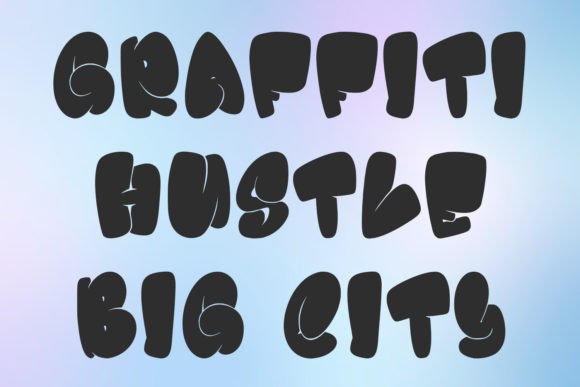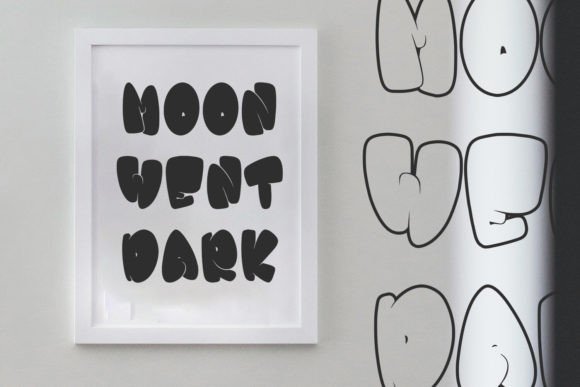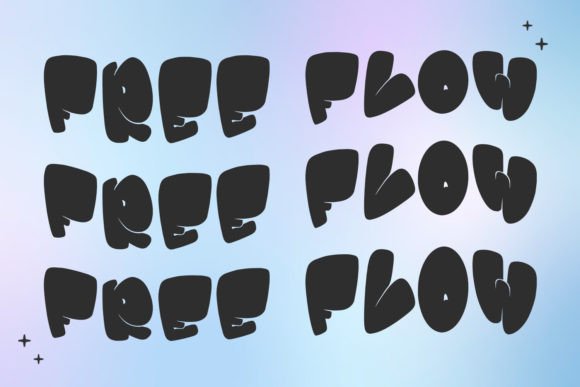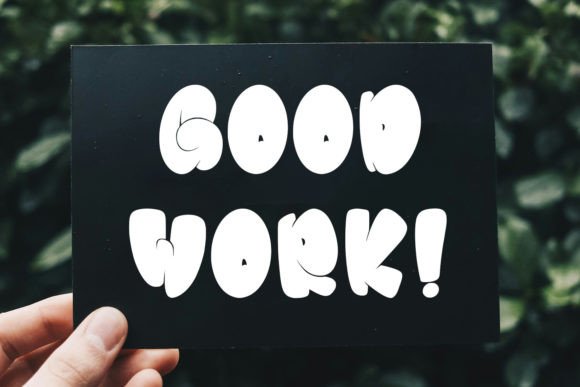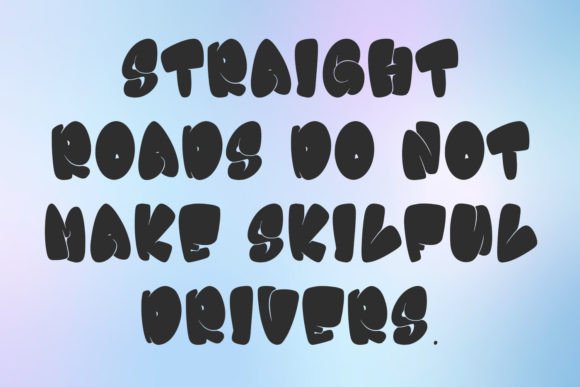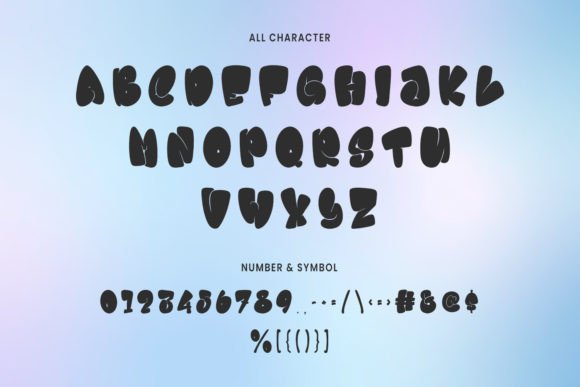
Introducing Boizz Font: The Fun and Playful Bubble Graffiti Font
Are you looking for a font that adds a cool, urban vibe to your creative projects? Look no further than Boizz Font! This fun and playful bubble graffiti font is perfect for designers, crafters, and anyone looking to add a touch of personality to their work. In this article, we’ll dive into the features and benefits of Boizz Font, and explore how you can use it to take your designs to the next level.
What is Boizz Font?
Boizz Font is a bold, rounded font that looks like it was drawn with a marker. Its playful, bubbly letters are reminiscent of graffiti art, but with a clean and modern twist. The font is perfect for creating eye-catching posters, flyers, and social media graphics that need to stand out from the crowd.
Key Features of Boizz Font
- Bold and rounded letters: Boizz Font features bold, rounded letters that are perfect for creating a fun and playful look.
- Marker-like texture: The font has a textured, marker-like quality that gives it a unique and authentic feel.
- Urban vibe: Boizz Font is perfect for designs that need a cool, urban vibe, such as posters, flyers, and social media graphics.
- Easy to read: Despite its bold and playful design, Boizz Font is easy to read, making it perfect for headlines, titles, and short paragraphs of text.
Benefits of Using Boizz Font
So why should you use Boizz Font in your designs? Here are just a few benefits:
- Adds personality to your designs: Boizz Font is a unique and eye-catching font that can add personality and style to your designs.
- Perfect for creative projects: Boizz Font is perfect for creative projects, such as posters, flyers, and social media graphics.
- Versatile: Boizz Font can be used for a wide range of designs, from bold and colorful posters to more subtle and sophisticated branding materials.
How to Use Boizz Font in Your Designs
Using Boizz Font in your designs is easy! Here are a few tips to get you started:
- Pair with a simple font: Boizz Font is bold and playful, so it’s best paired with a simpler font for body text.
- Use for headlines and titles: Boizz Font is perfect for headlines and titles, where its bold and playful design can really shine.
- Experiment with colors: Boizz Font looks great in bold and bright colors, but it can also be used in more subtle and muted tones.
- Have fun!: The most important thing is to have fun and be creative with Boizz Font! Experiment with different designs and styles to see what works best for you.
In conclusion, Boizz Font is a fun and playful bubble graffiti font that’s perfect for designers, crafters, and anyone looking to add a cool, urban vibe to their work. With its bold and rounded letters, marker-like texture, and easy-to-read design, Boizz Font is a versatile and eye-catching font that can add personality and style to any design. So why not give it a try and see what amazing designs you can create?
If you’re a designer or crafter looking to use Boizz Font in your work, here are a few tips to keep in mind:
- Use Boizz Font to add a pop of personality: Boizz Font is perfect for adding a pop of personality to your designs, whether it’s a bold headline or a playful illustration.
- Experiment with different colors and textures: Boizz Font looks great in a wide range of colors and textures, so don’t be afraid to experiment and see what works best for your design.
- Pair with other fonts: Boizz Font can be paired with a wide range of other fonts to create a unique and eye-catching design.